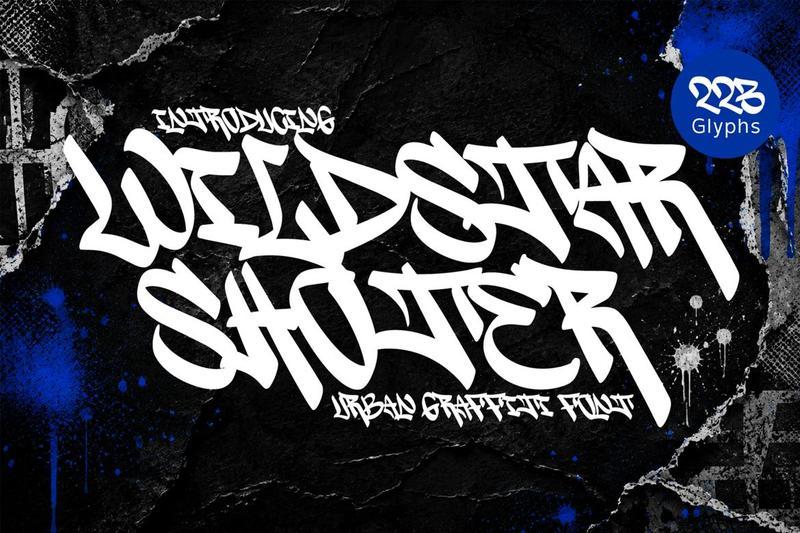
**Wildstar Shoter**is a bold urban graffiti display font inspired by authentic street art, graffiti walls, skate culture, and underground hip-hop aesthetics. Featuring expressive handstyle lettering, dynamic brush strokes, and an energetic street-inspired style, this font delivers a strong visual impact for creative projects.
Its authentic graffiti character makes it ideal for bold headlines, logos, posters, album artwork, packaging, branding, social media graphics, YouTube thumbnails, gaming graphics, and other projects that need a distinctive urban look.